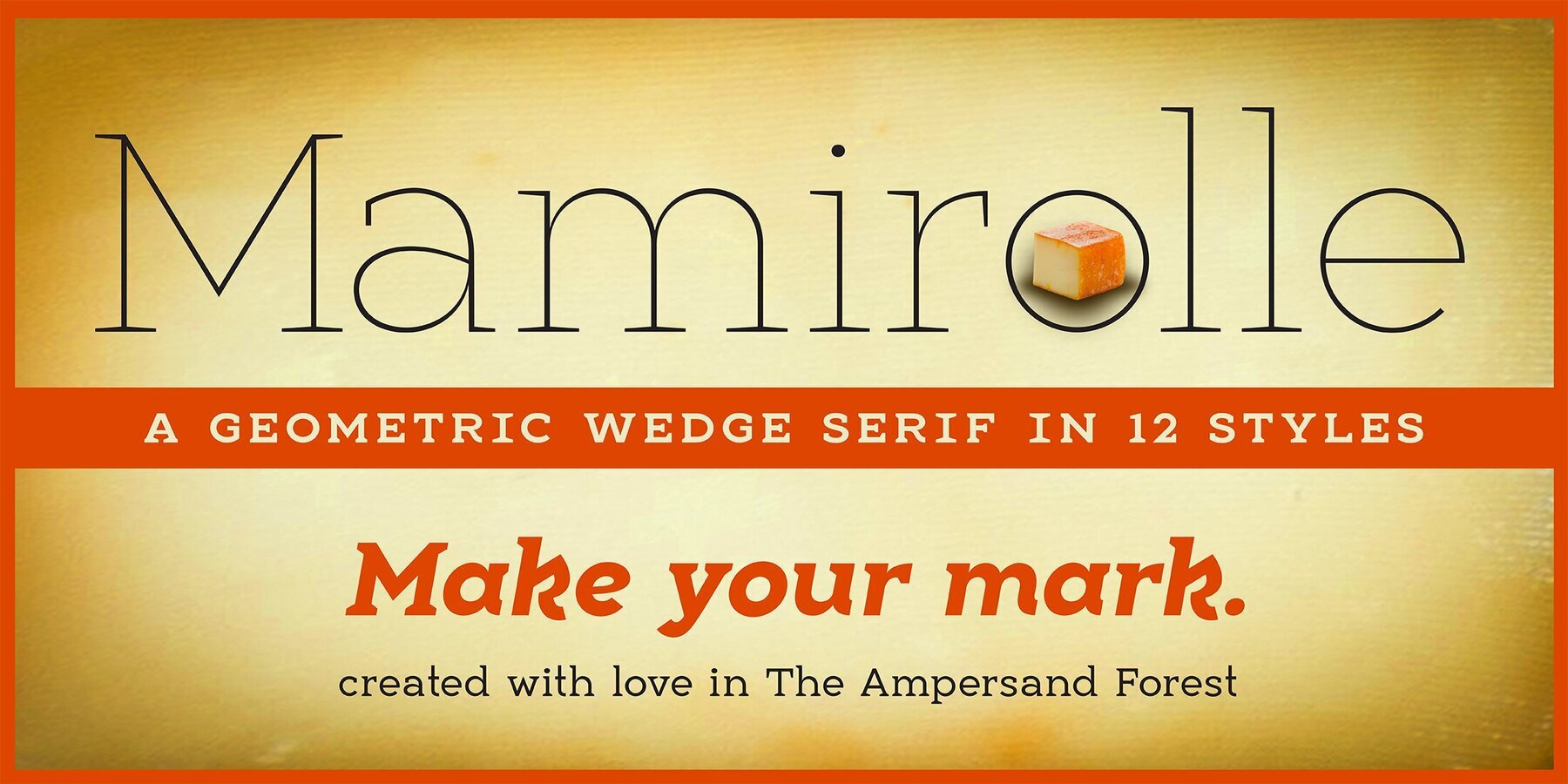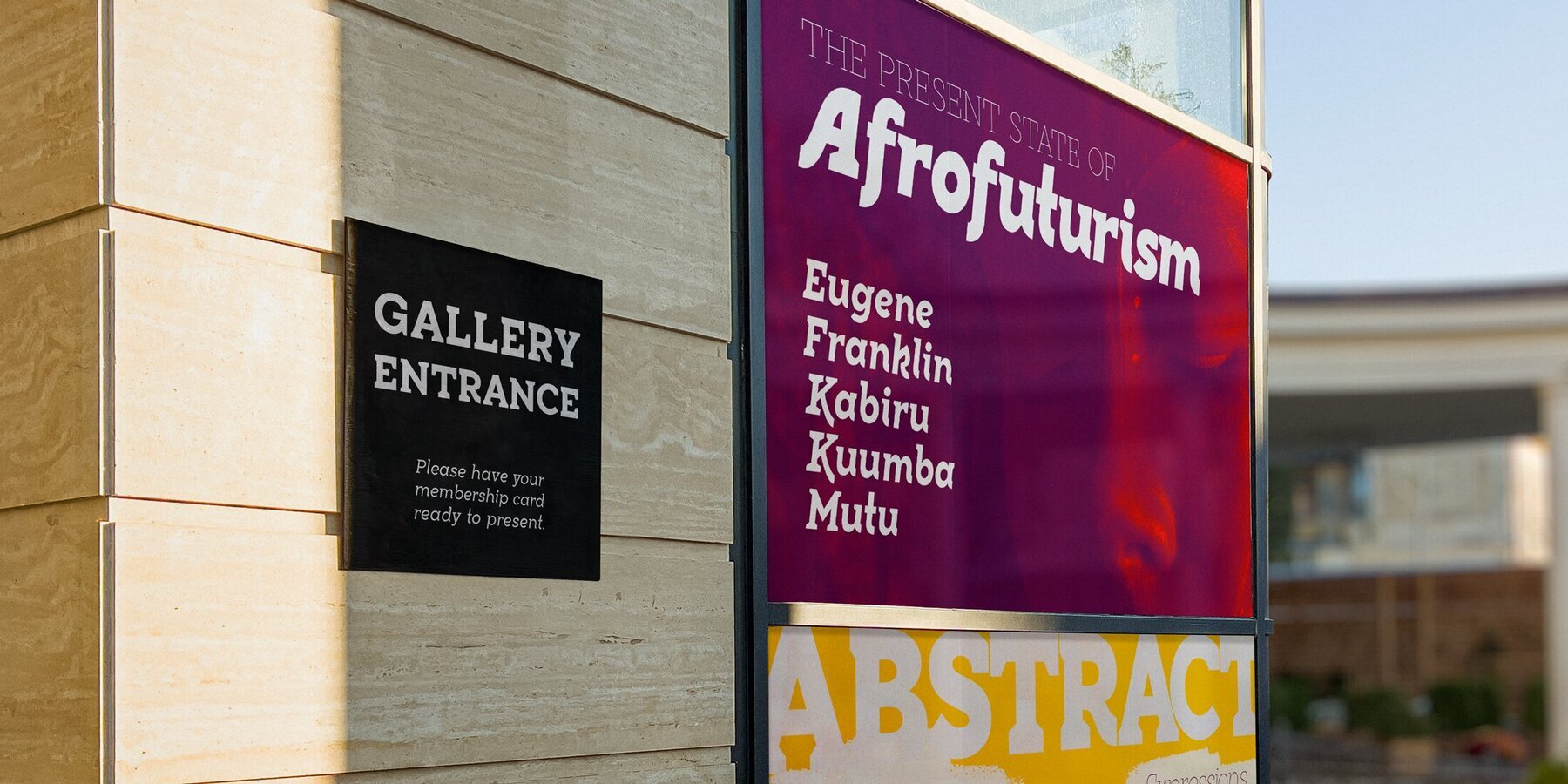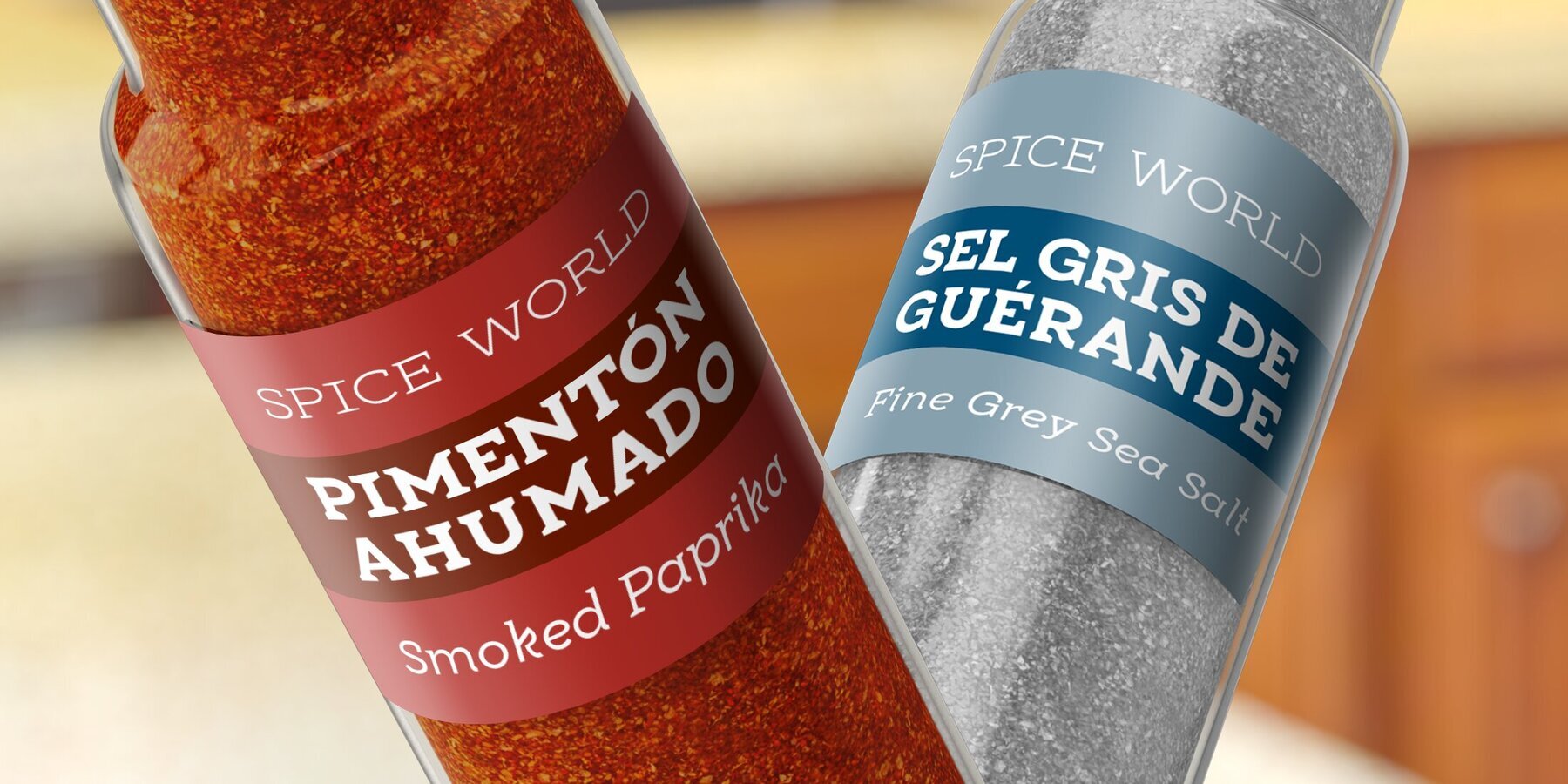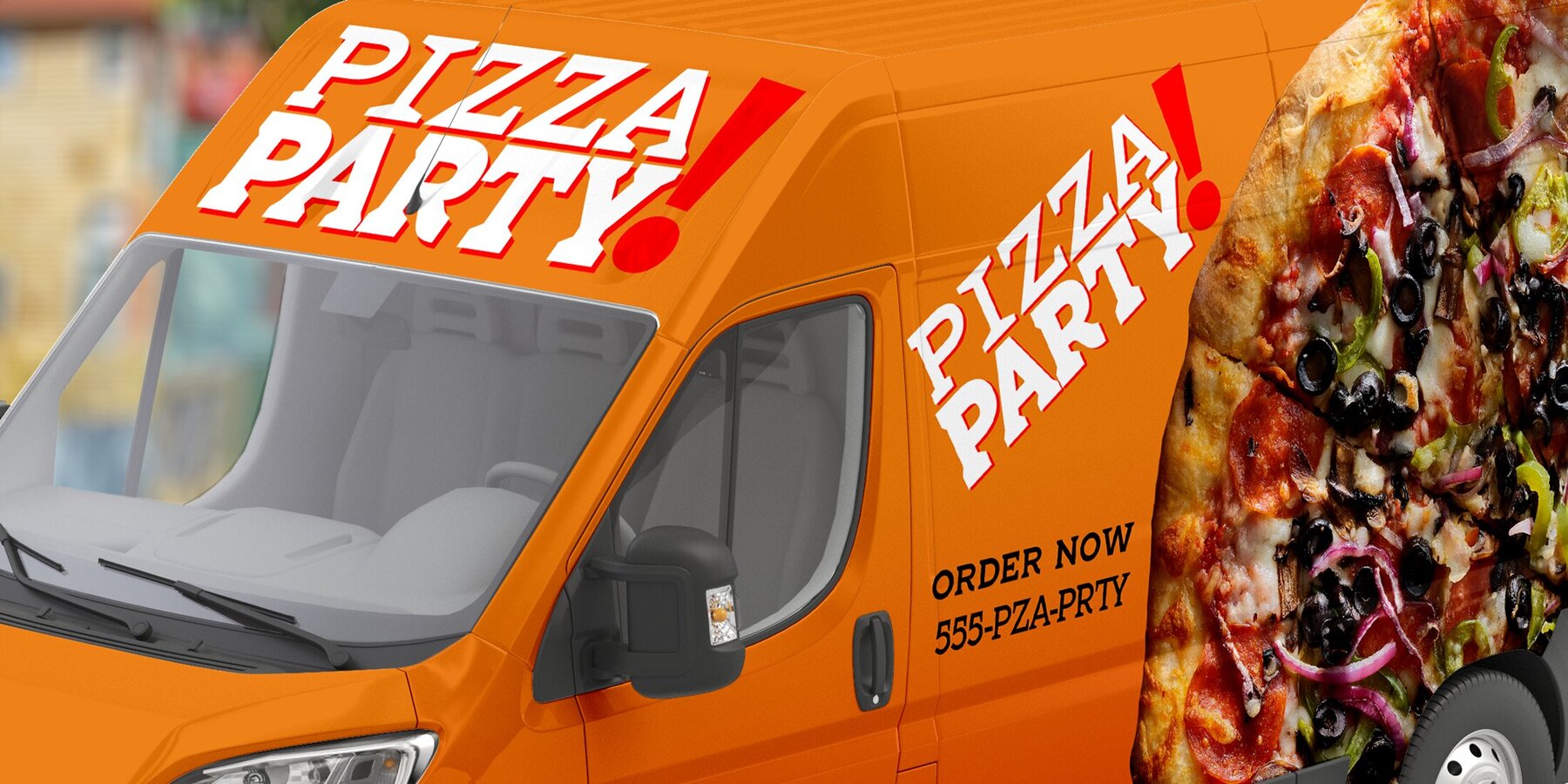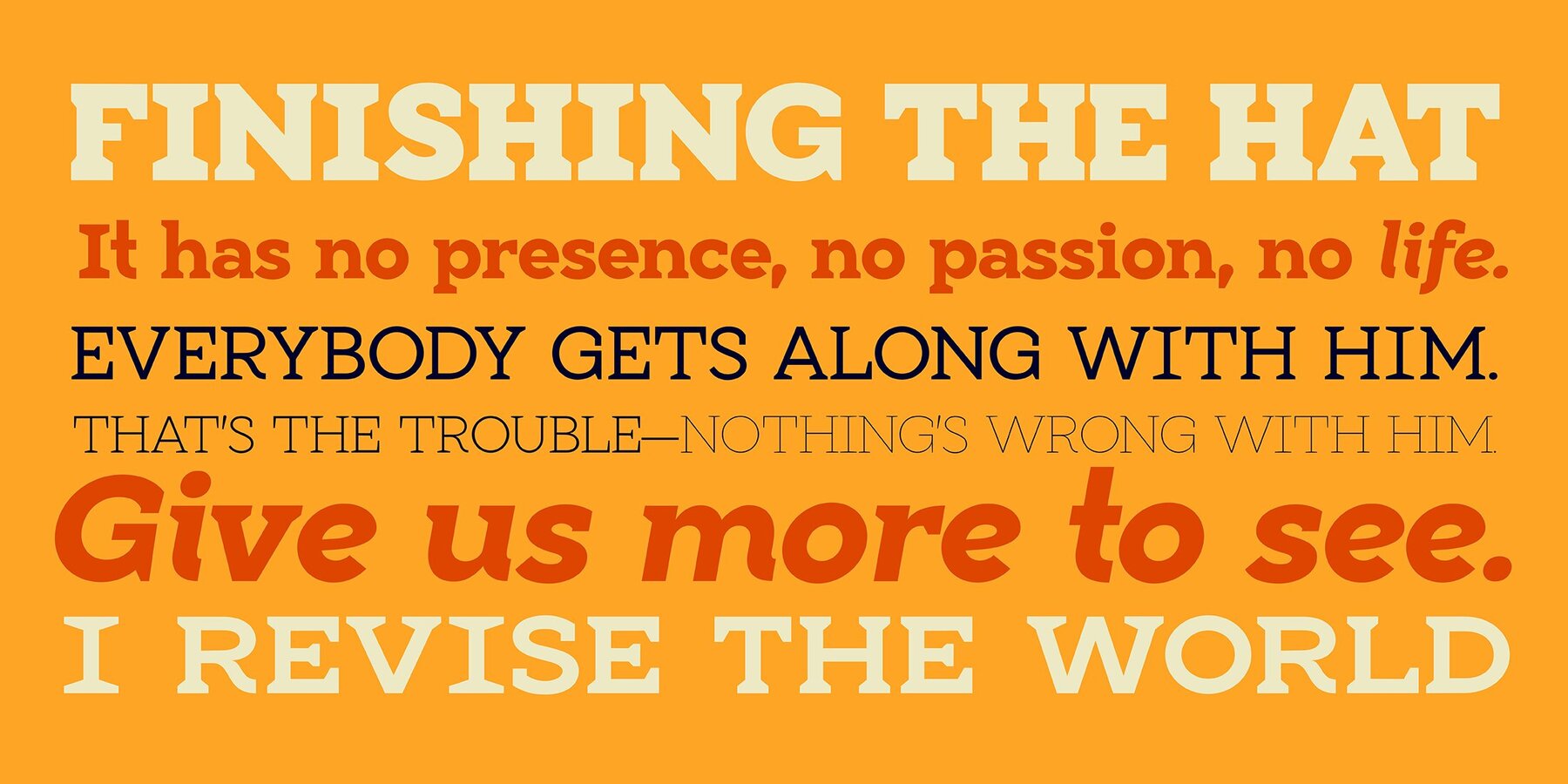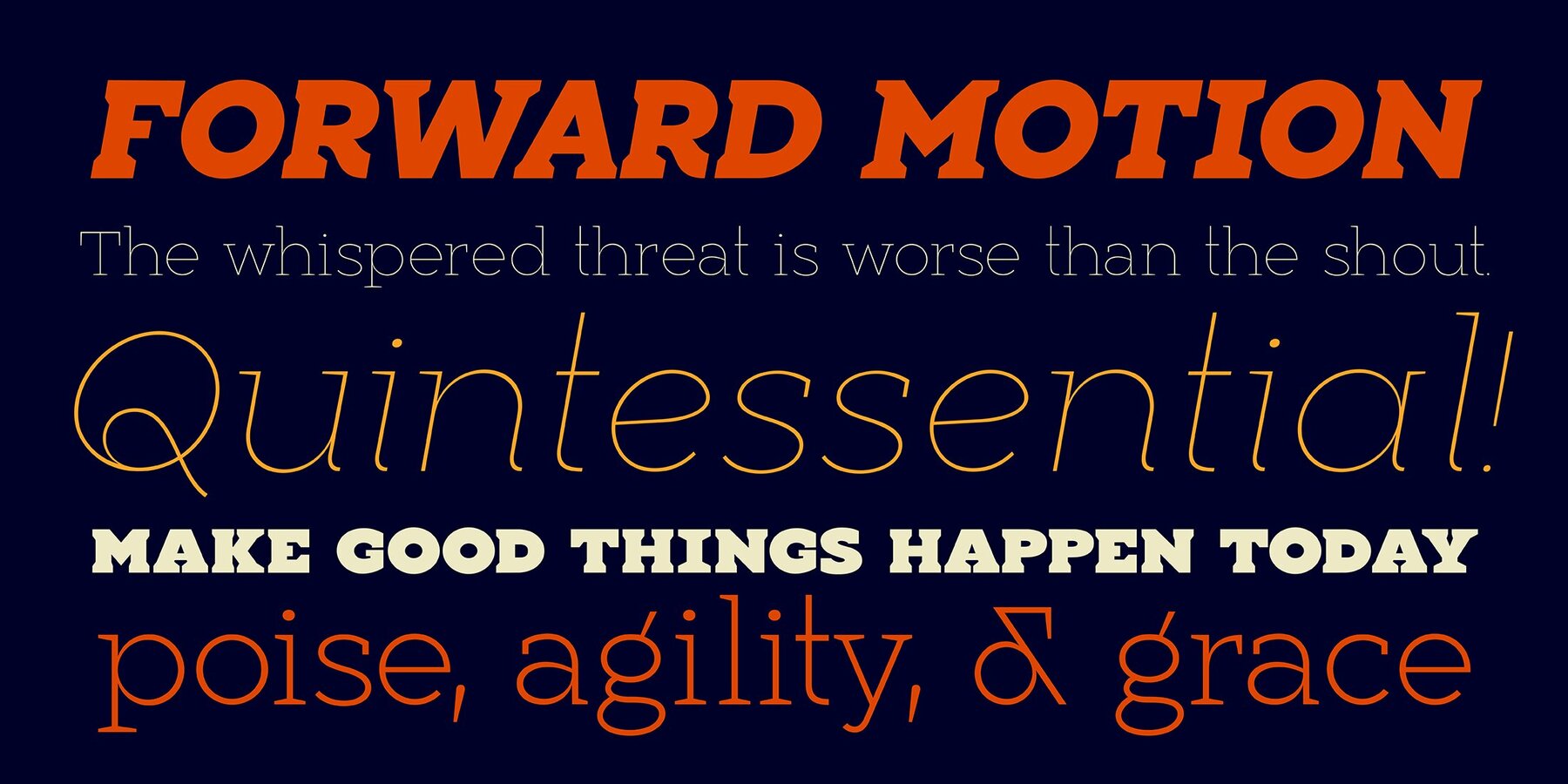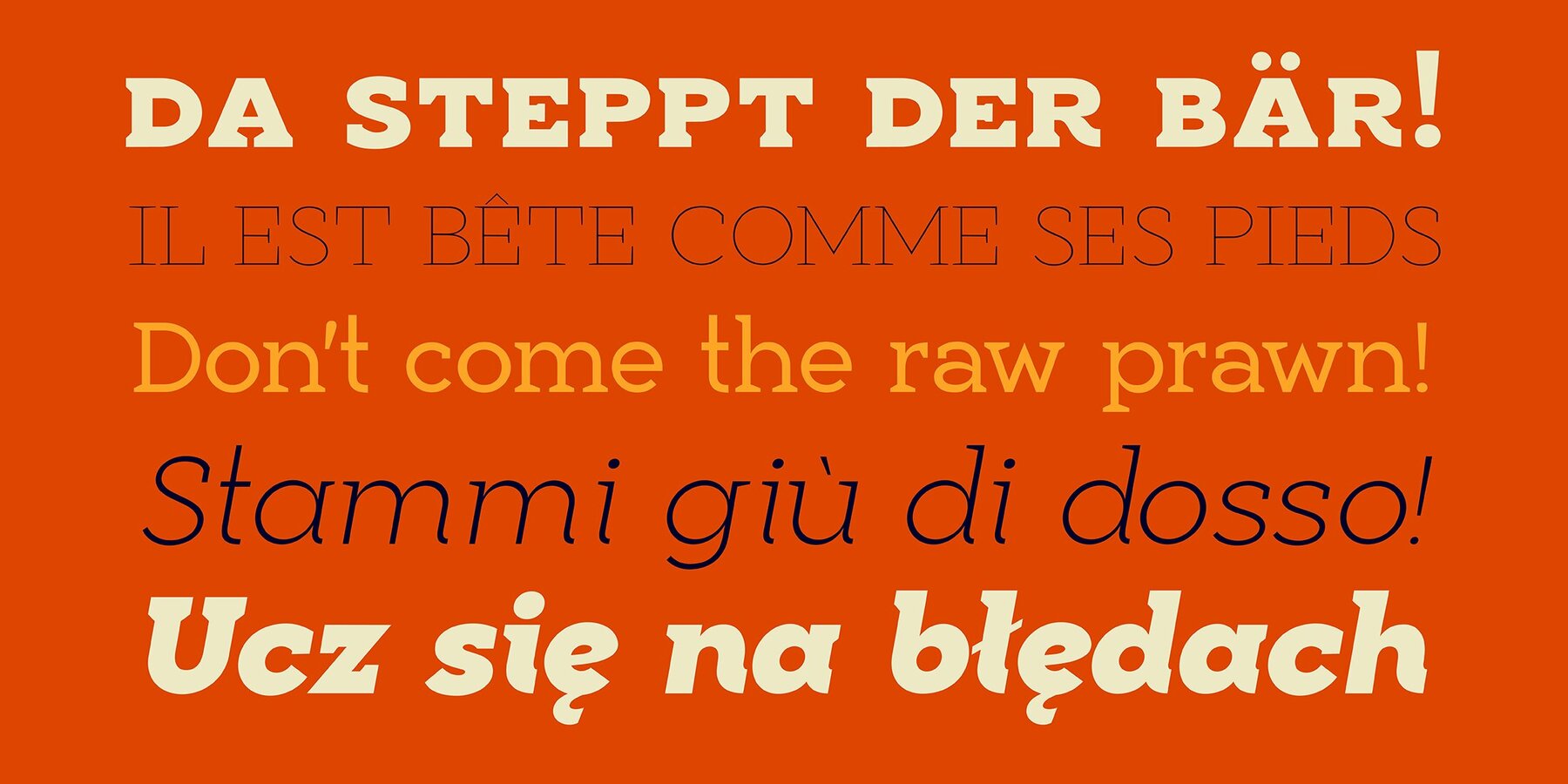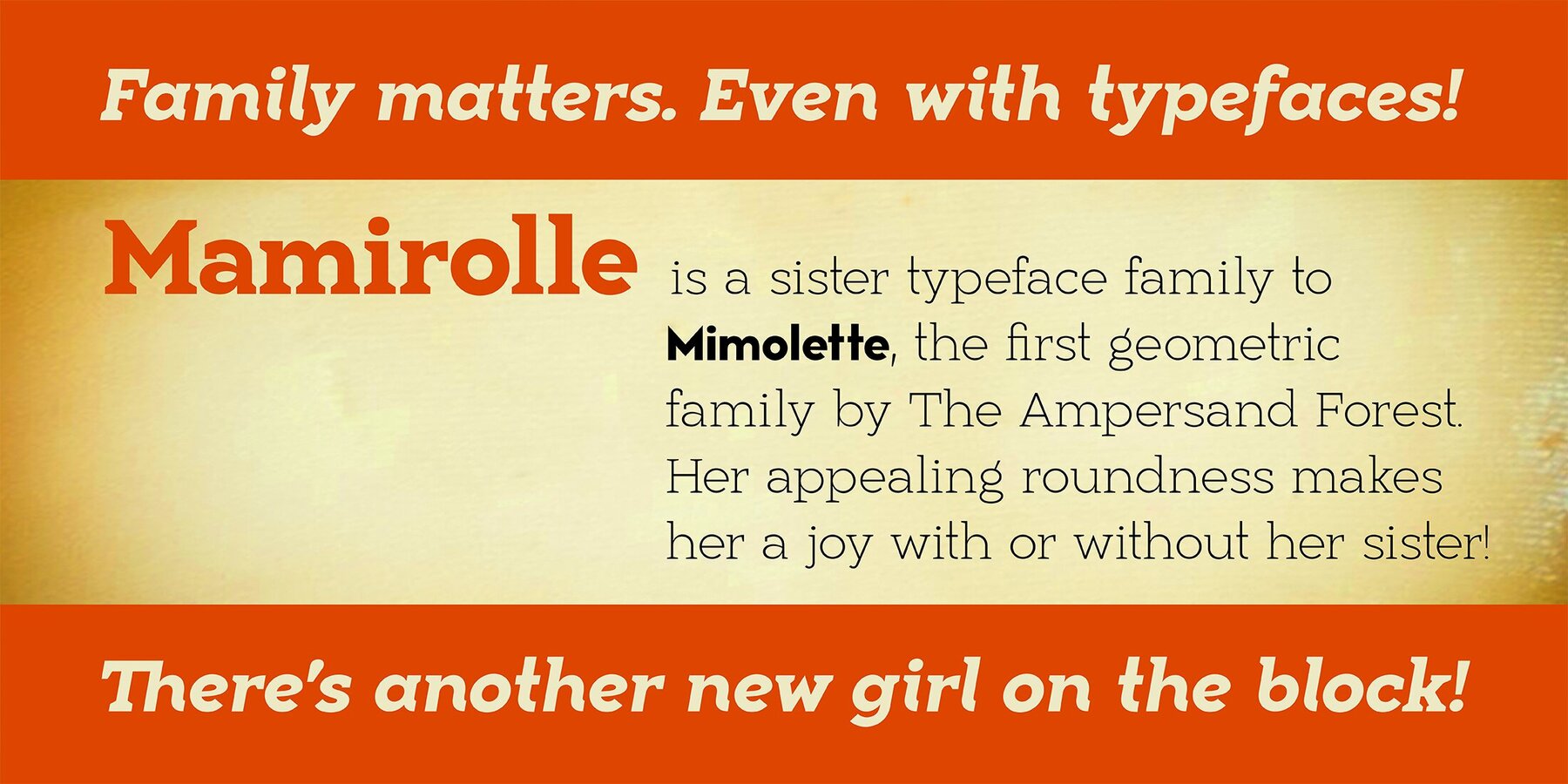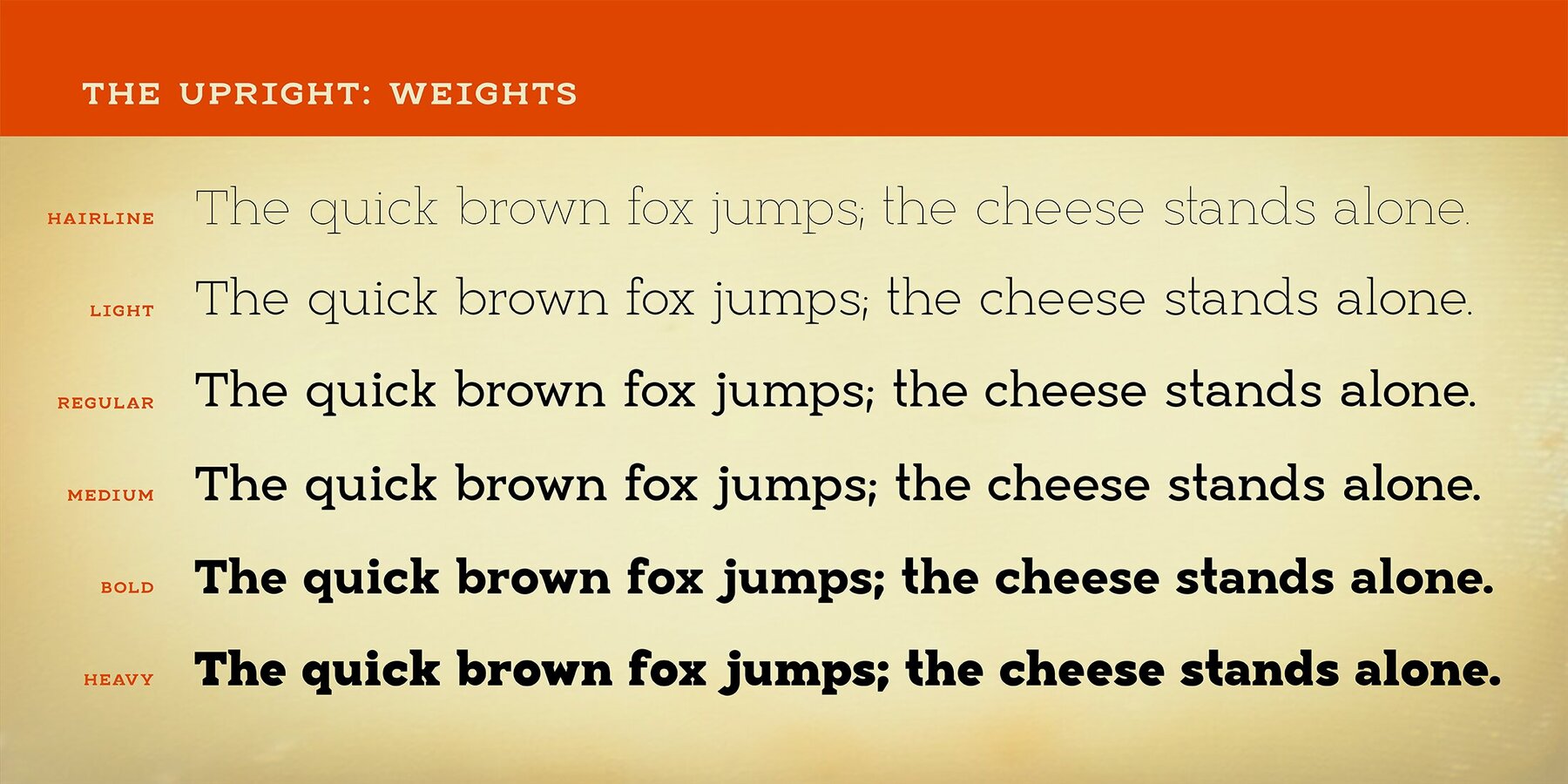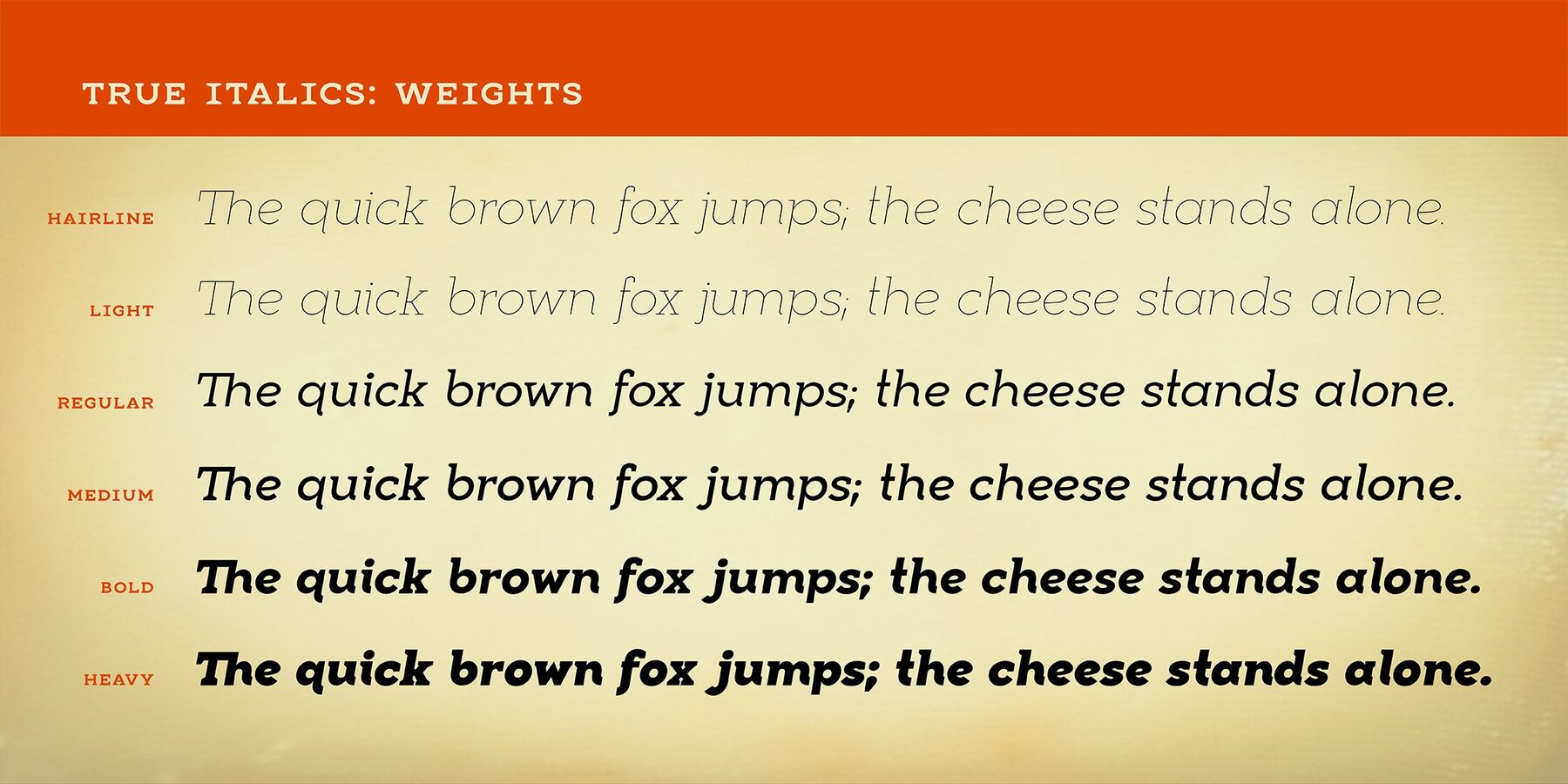
Mamirolle Font
A versatile and inviting geometric wedge serif family. Sometimes a sans serif just needs a sister. Meet Mamirolle! A geometric wedge-serif companion to Mimolette! (OR is Mimolette the sans serif companion to Mamirolle.... hmmmmm....).
Mamirolle, like her sister, is great for text and display alike—she's super-readable AND super-legible, and her different weights lend themselves to creating clear contrast in your textual hierarchy! And she's got some nifty features, too!
Mamirolle has a two-story a and g in the upright versions, but if you want a one-story a and g, just turn on Stylistic Set 01!
Her italic is a true italic, not just an oblique.
Want more playful cursive alternatives in the italic? Activate Stylistic Set 02, and you've got them in the A, E, K, Q, R, and k.
She's got true small caps in all styles!
She's got true fractions in all styles, as well as oldstyle (small cap) and lining numerals, in both tabular and proportional widths.
Best of all, perhaps, Mamirolle was made with love, as always, by yer pals in the Ampersand Forest.